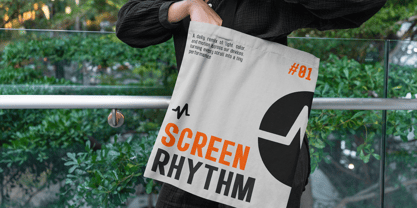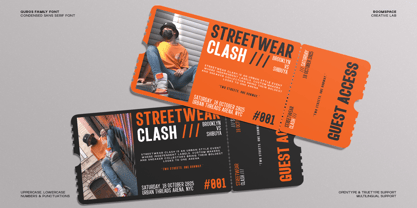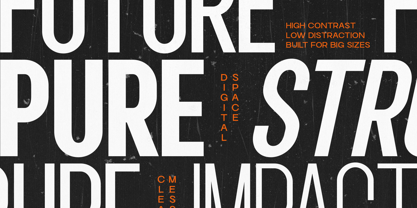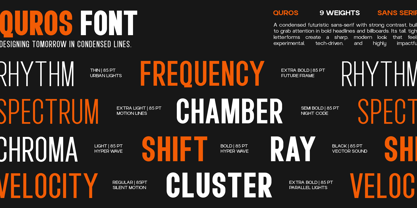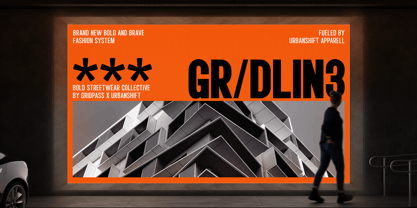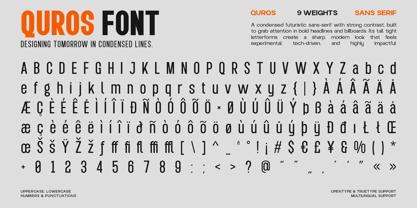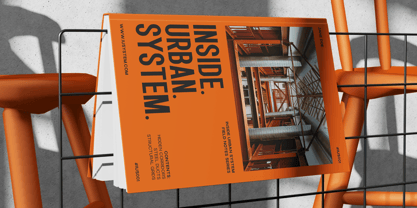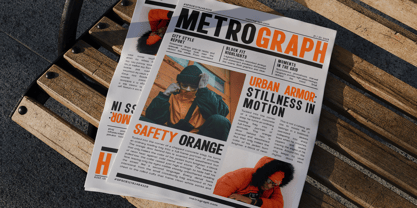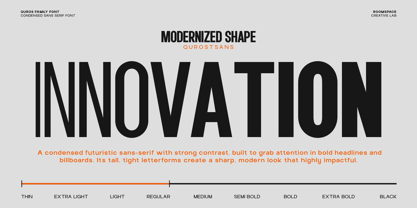
RCL Quros
The RCL Quros Font Family was designed by Bakhrudin Ja'far and published by Jafar07. RCL Quros contains 7 styles and family package options. More about this family
A bold, modern condensed sans built for impactful headlines and contemporary branding. Grotap a condensed sans-serif font family with a bold, modern spirit. Designed for powerful headlines and clean contemporary branding, Grotap delivers sharp vertical rhythm and strong typographic presence. With 9 versatile weights, it adapts beautifully to editorial layouts, posters, packaging, and digital design projects, giving your work a confident, elevated look. Font Features 9 weights Condensed modern sans-serif Uppercase & lowercase Multilingual support PUA encoded Perfect For Branding, posters, magazine layouts, packaging, web design, social media, print advertising, and UI graphics. Lifestyle + emotional readability Boutique agencies, startup founders, modern digital creatives Friendly, confident, design-forward